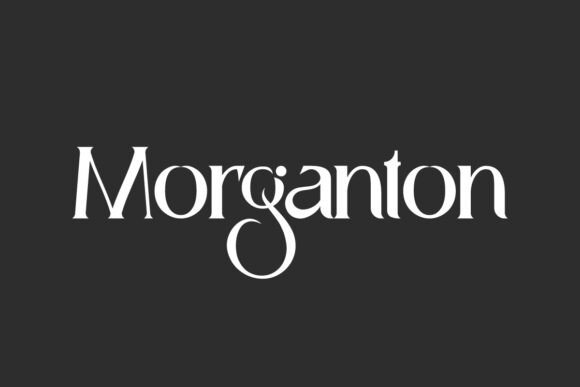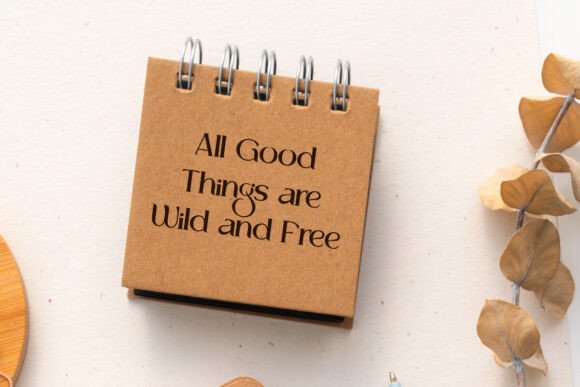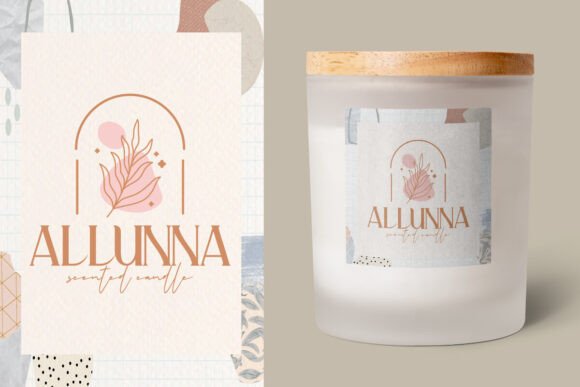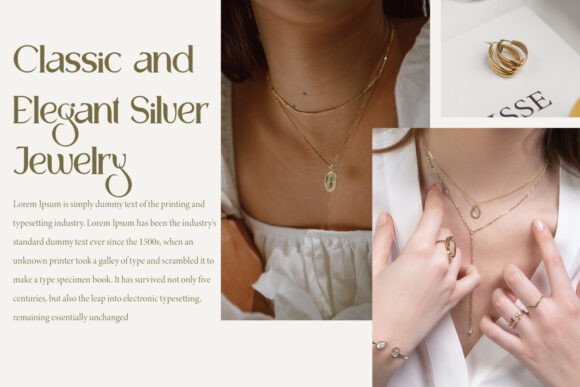
Morganton Font
About the Morganton Font
Make a bold statement with Morganton Font, a powerful and memorable font. Morganton Font is a fancy exclusive serif display font in elegant style. This font has strong characters with a beautiful shape to give an elegant looks. It will suits many designs, such as billboard, body text, cover, custom design, gift box, invitation, label, product packaging, quote, screen printing, signage, stationery, title, website, and more!
Morganton excels as a display font for headlines, logos, and short, impactful text on packaging or signage. Its elegant, strong characters make it ideal for luxury brands, sophisticated events, or projects requiring a touch of classic refinement. Avoid using it for body text or lengthy paragraphs; its ornate details would hinder readability.
For optimal pairings, consider complementing Morganton’s refined serif style with a clean, geometric sans-serif like Montserrat or a neutral, modern serif such as Lato for body text. A contrasting script font, such as Great Vibes, could add a touch of handwritten elegance to invitations or stationery.
Morganton projects an air of sophisticated elegance and timeless quality. Its bold, yet refined forms convey a sense of exclusivity and high-end appeal, making it unsuitable for projects needing a casual or playful feel.
Morganton Font Usage Examples
Morganton Font Example